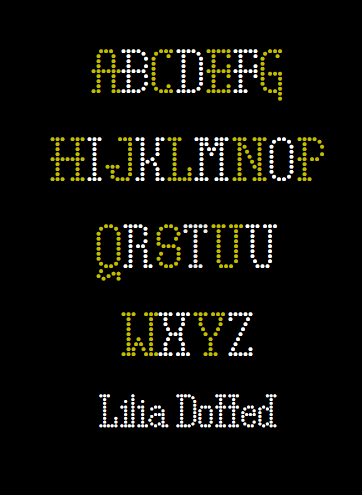
Lilia Dotted
A dotted slab-serif inspired by fs dotty serif by opipik
beautiful and noteworthy. Love the 3. 10/10
Looks good. Nice work.
Very nice! Love the Q. I think the descenders could be a little shorter, and the ascender serifs only pointing to the left.
Very delicate.
Very like. That t is super cool.
The Q is really cool.
I think the top-right corner of the g needs a serif, similar to the q.